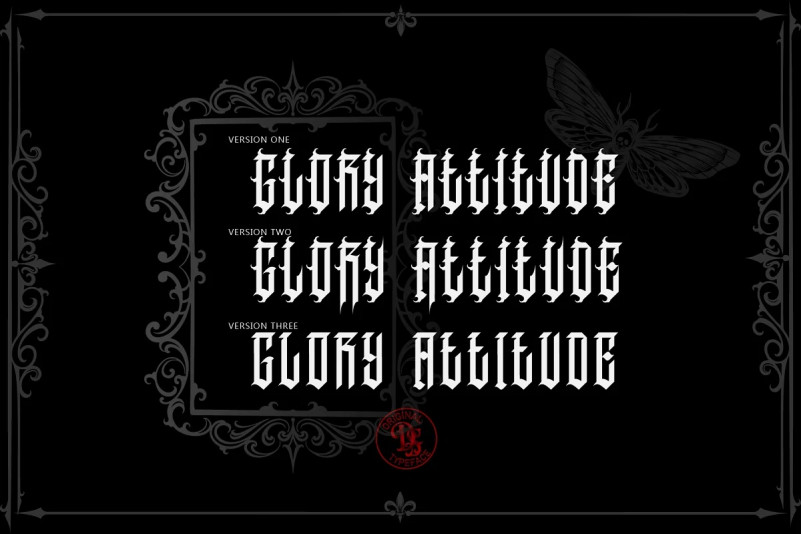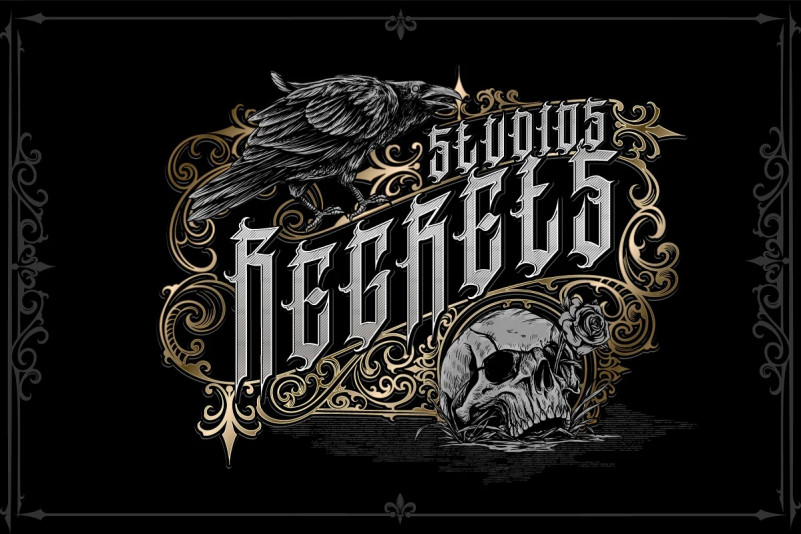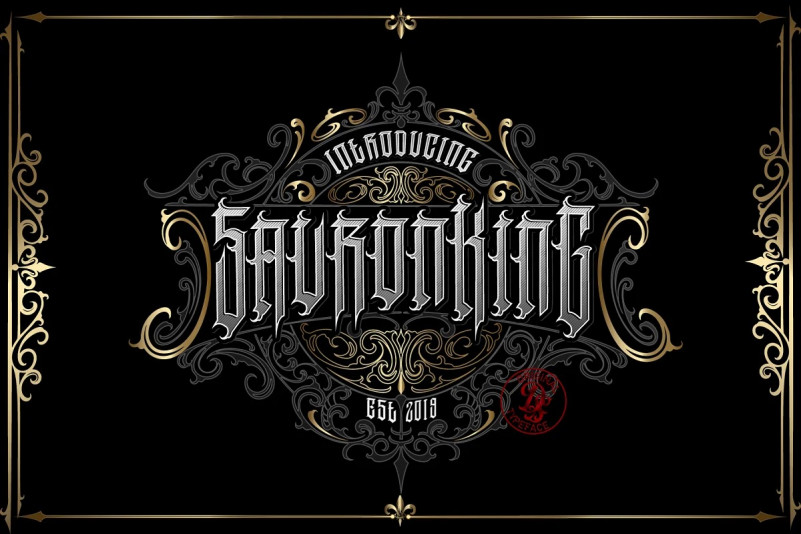
Dark Magic Modern Blackletter Font
Dark Magic Blackletter Font
Introducing our new release font, Dark Magic Modern Blackletter Typeface, A collection of letters and numbers suitable for Branding Design, Logo Design, Digital Lettering Arts, T-Shirt/Apparel, Poster, Magazine, Signs, Advertising Design, and your any project.